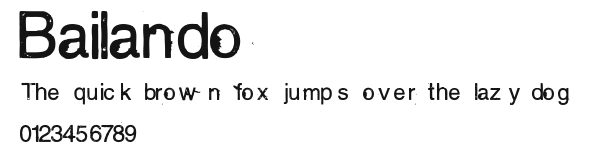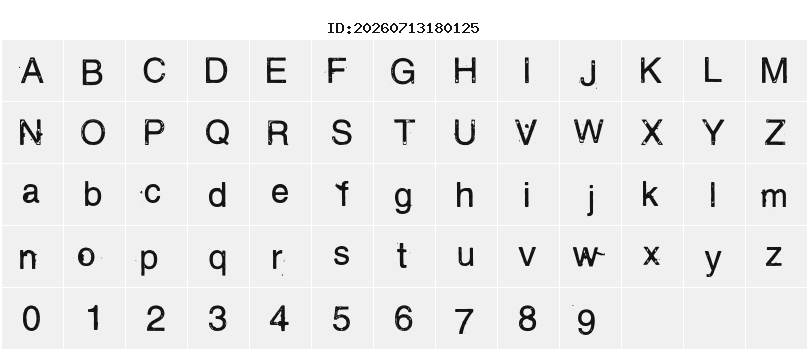
About Bailando.ttf
Bailando.ttf is a modern, elegant sans-serif font designed for ultimate readability and visual harmony. Perfect for branding, headlines, web design, and print materials.